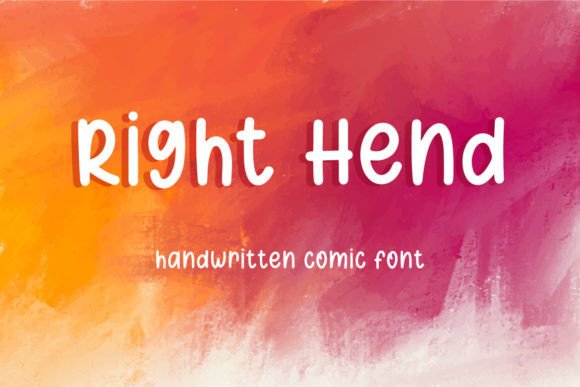
Journey into the realm of typography with Right Hend, a captivating script font that dances across the screen with its enchanting strokes and graceful curves. This extraordinary creation by Mightyfire is a testament to the artistry of handwritten fonts, embodying the essence of warmth and charm.
Dive into a world of endless design possibilities with Right Hend, the perfect companion for your creative endeavors. Let your imagination soar as you explore the depths of this font's versatility, crafting designs that resonate with emotion and leave a lasting impression.
With Right Hend, transform ordinary words into exquisite pieces of art, evoking a sense of wonder and delight. Its whimsical nature adds a touch of playfulness to any project, while its undeniable elegance elevates your designs to new heights.
Unleash your inner artist and embrace the boundless potential of Right Hend. Whether you're composing heartfelt messages, crafting stunning logos, or designing captivating marketing materials, this versatile font will effortlessly adapt to your vision.
Step into the spotlight and let Right Hend be your guiding light, capturing the attention of your audience with its captivating allure. Its distinctive style will make your designs shine brighter than ever before, leaving an unforgettable mark on the world.